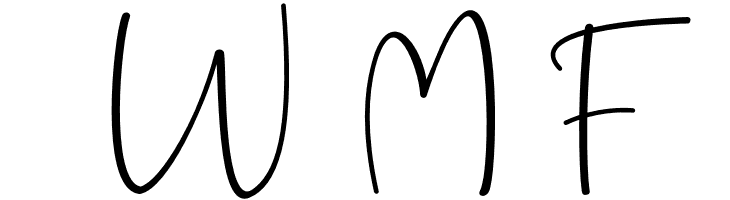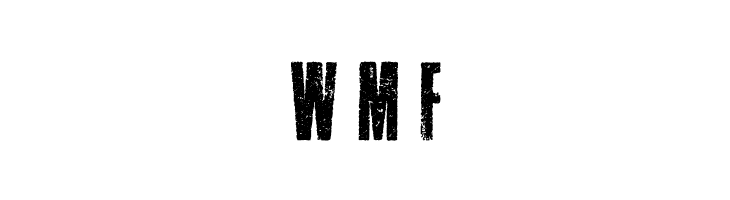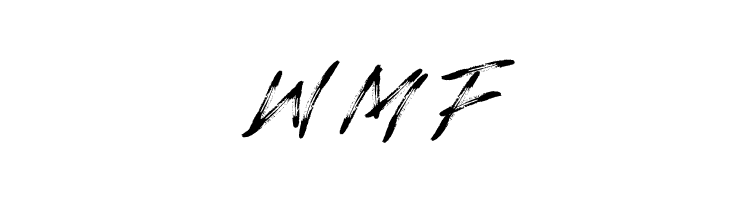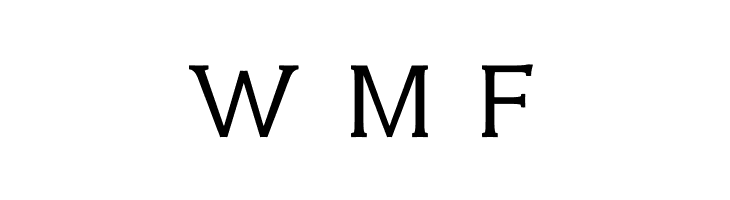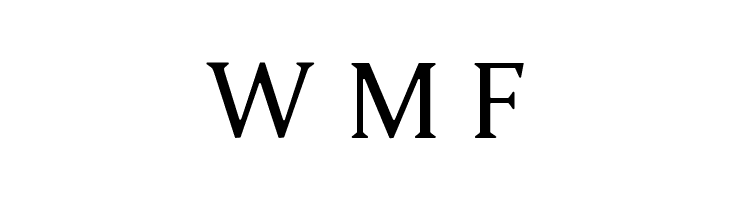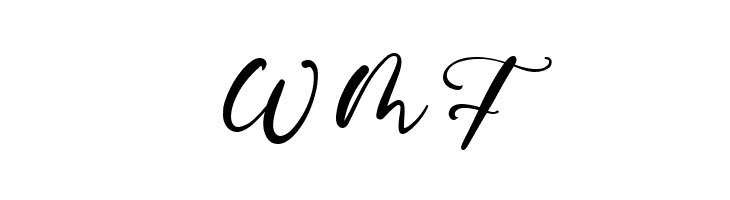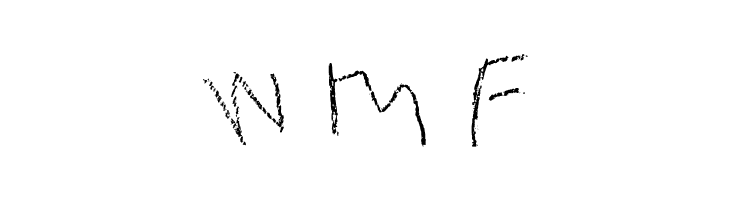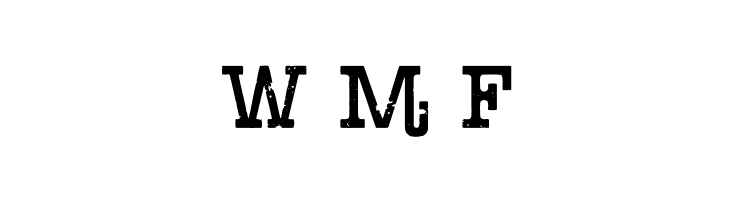
A classic serif font with modern elegance and balanced contrast.
Elegant cursive script with a handwritten feel.
A bold, brush-style handwritten font with dynamic strokes.
A lively handwritten font with fluid strokes and playful elegance.
A classic serif font with elegant strokes and refined curves.
A bold, distressed font with an eroded, rugged appearance.
A distressed, slab serif font with a rugged, worn appearance.
A bold, distressed font with a rugged, eroded texture.